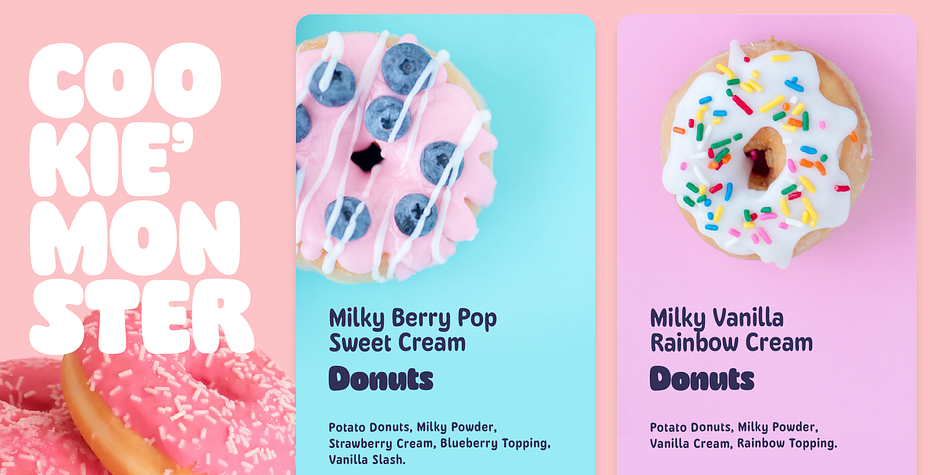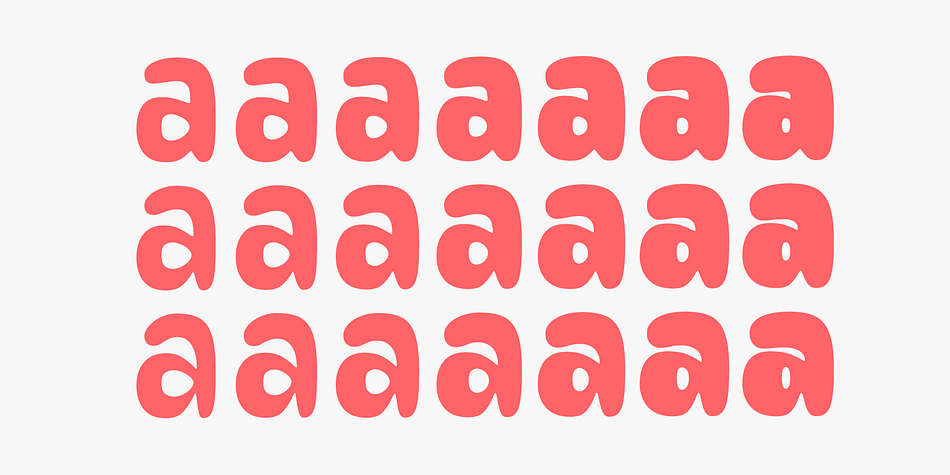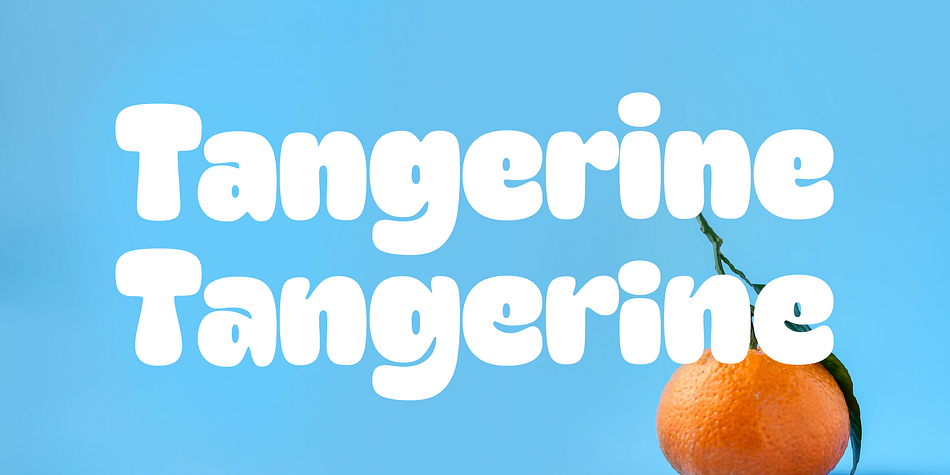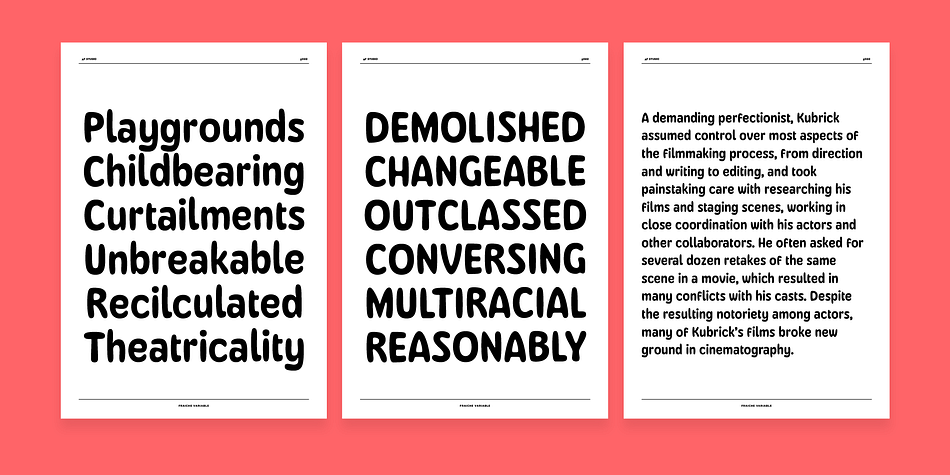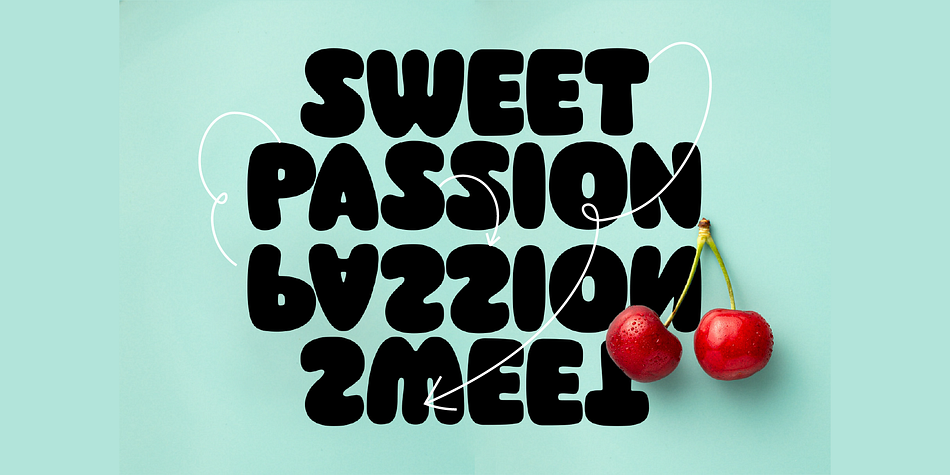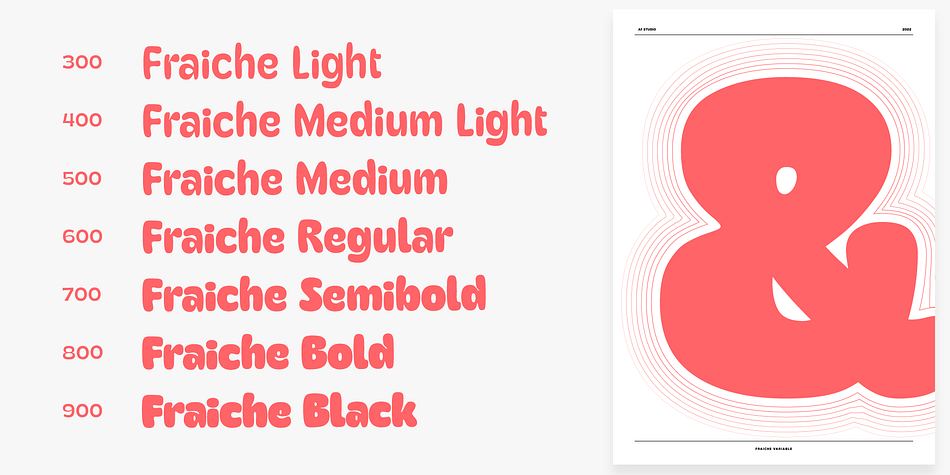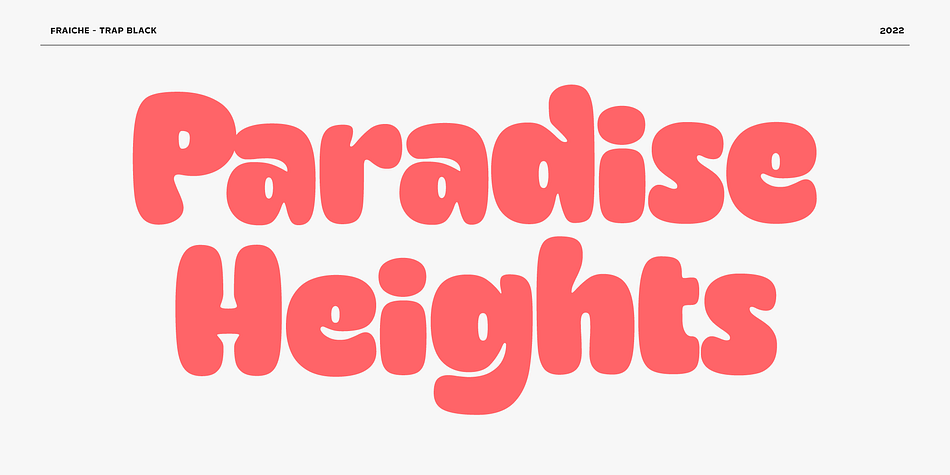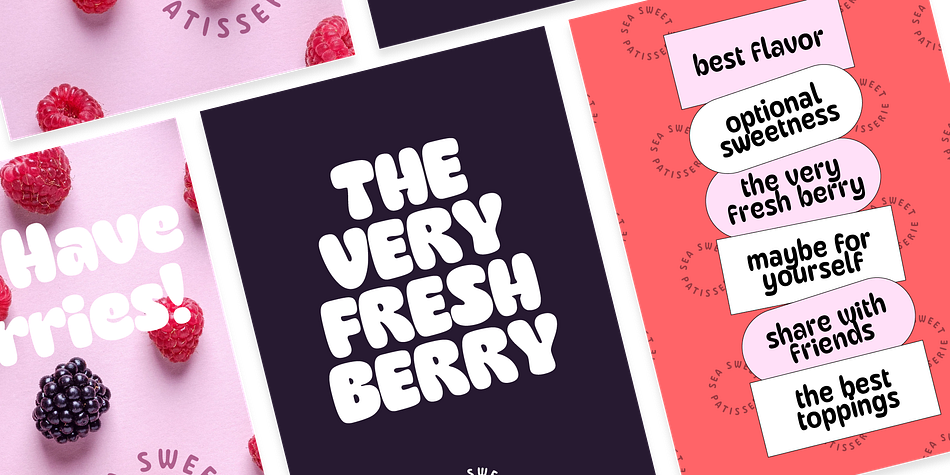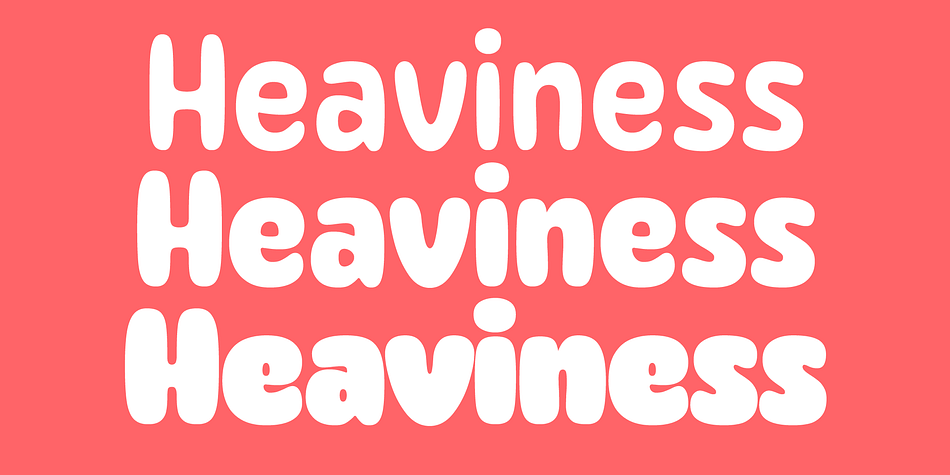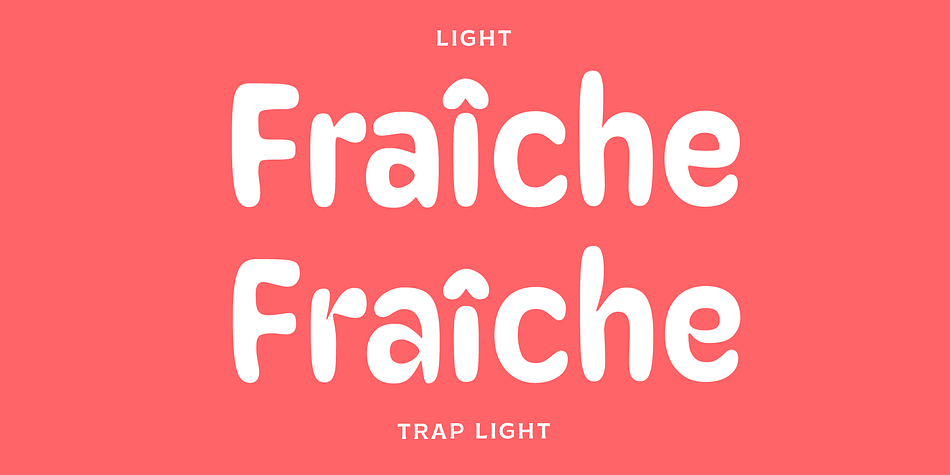
Fraiche
Fraiche is a display sans and sans serif font family. This typeface has fifteen styles and was published by AF Studio.
Fraiche, is an adorable soft & rounded typefaces. Available with the Variable fonts in Weights and the Ink Trap. With the regular style you’ll have the correct anatomy of the fonts. with the Ink Trap style, it added more extreme space on the ink trap.